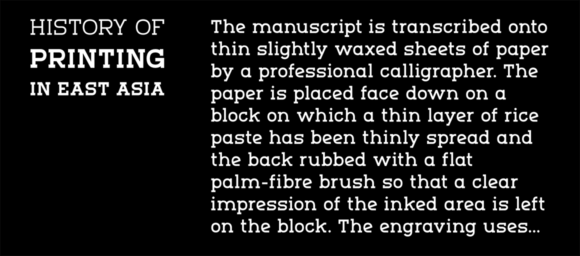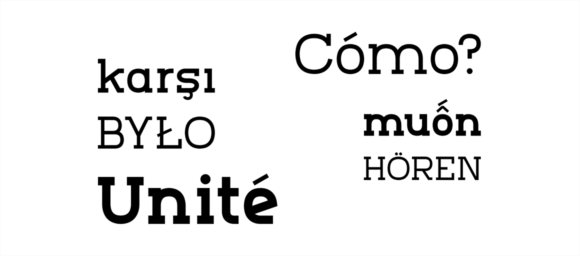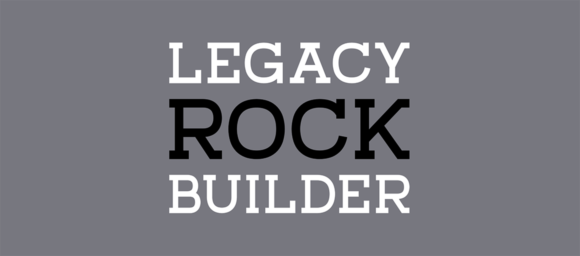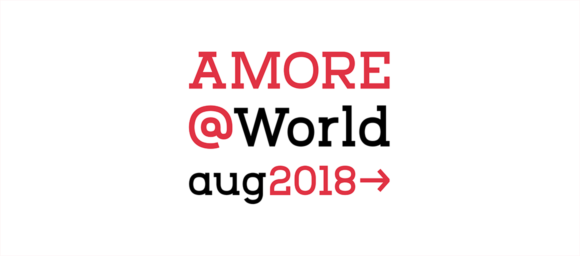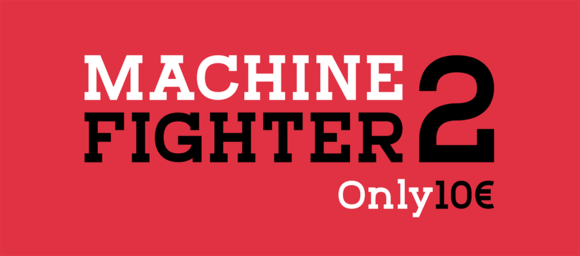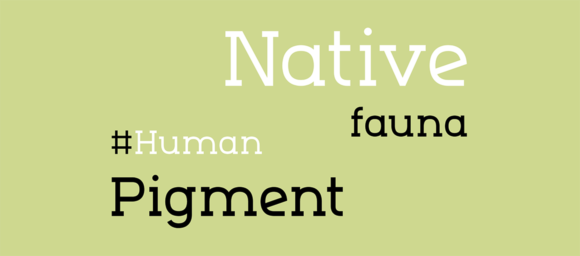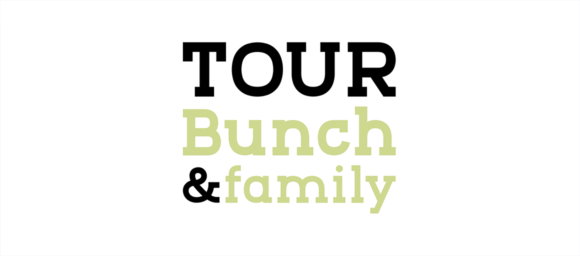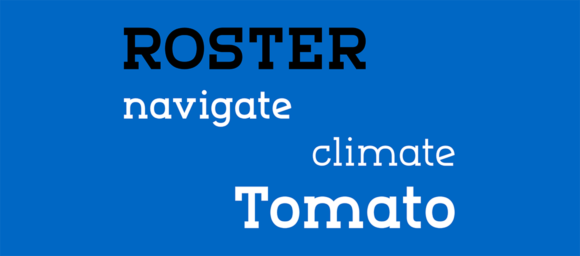
Marmo – Free serif font family
Marmo is a free font family with sharp-edged and thick-bodied character, designed by Stefano Giliberti. This typeface comes in 10 styles (Extra Light, Light, Regular, Bold, Extra Bold, plus italic versions). Also, it includes 486 glyphs and provides support for 92 languages!
Such a complete font family gives you a wide range of options when it comes to create your typographic project (website, posters, flyers, et cetera).